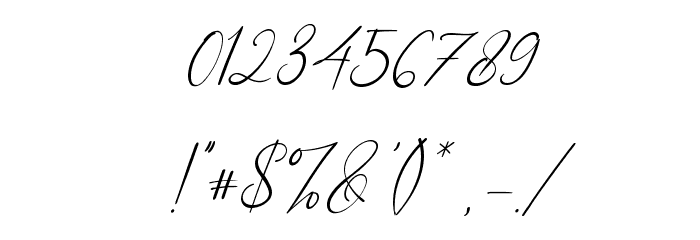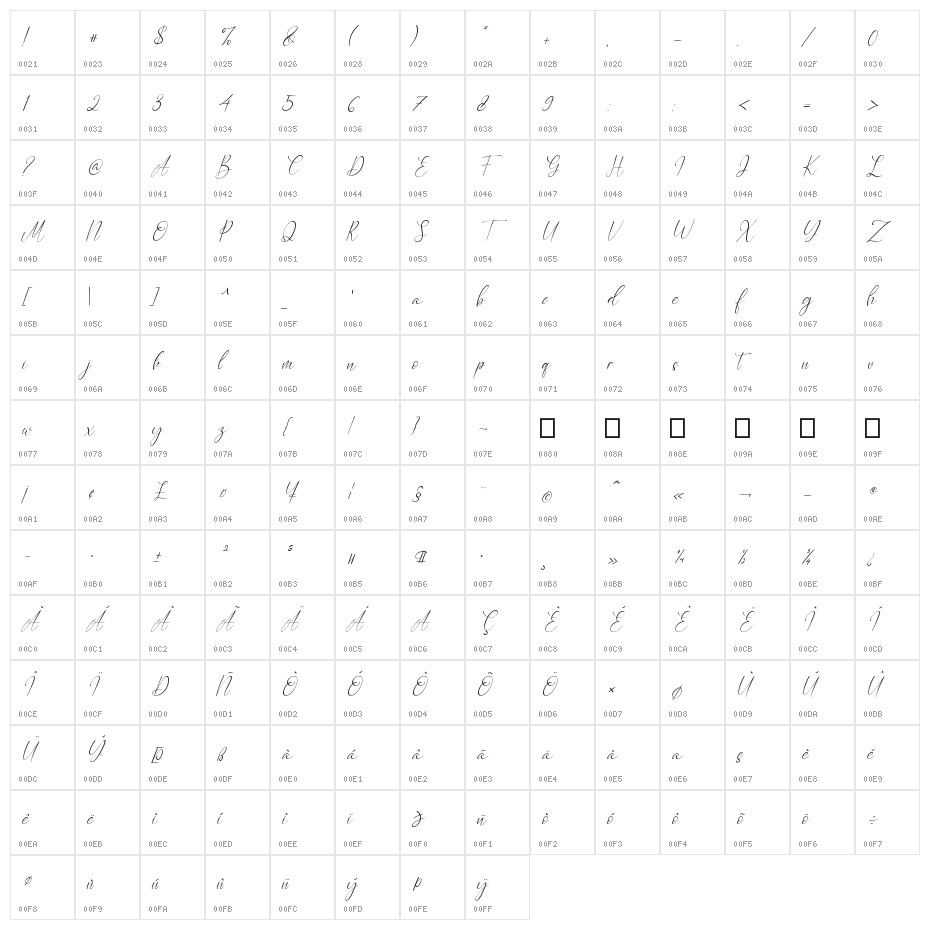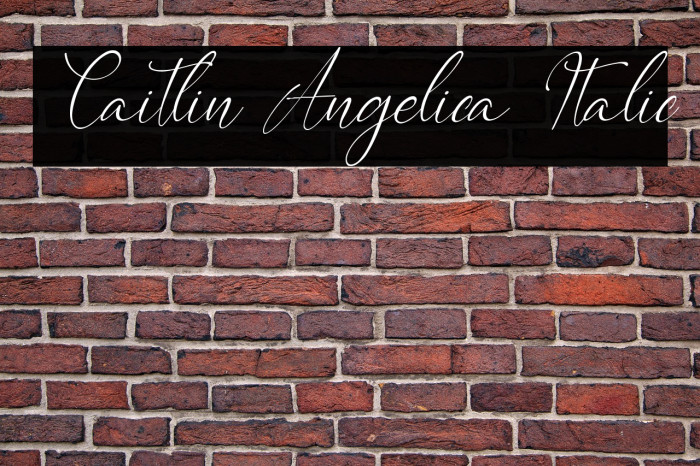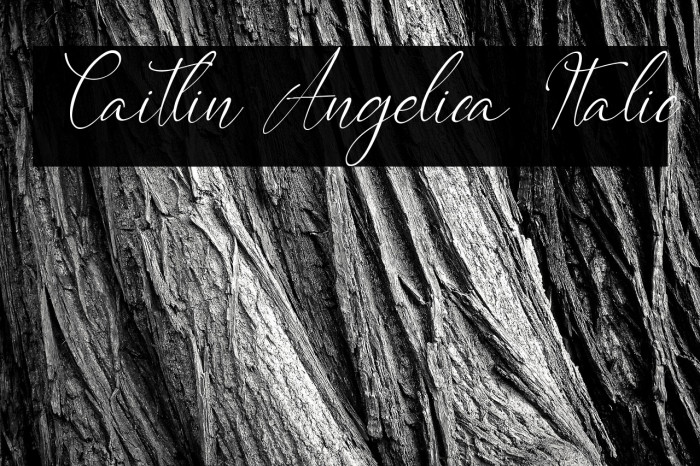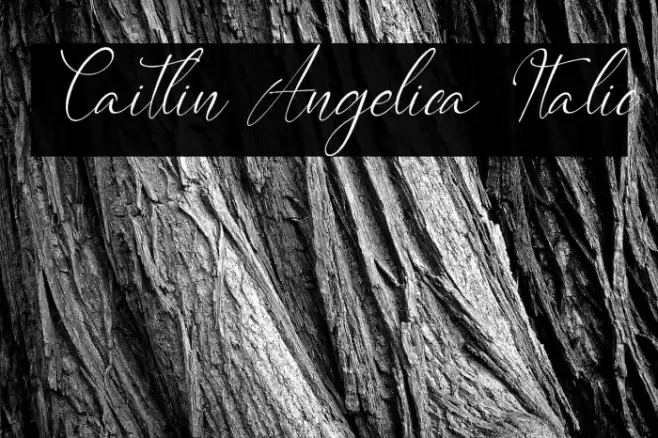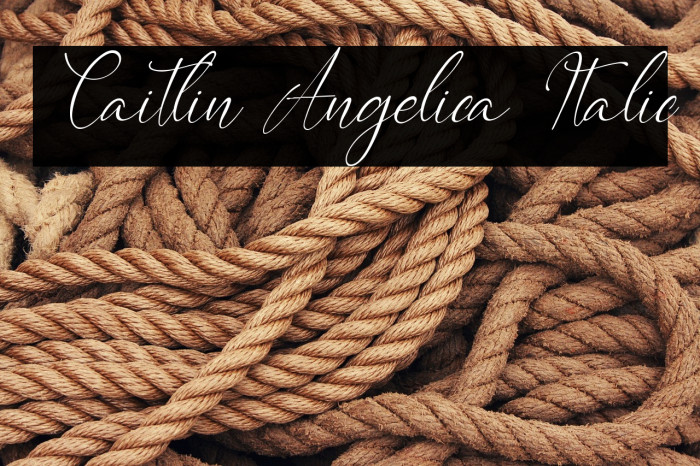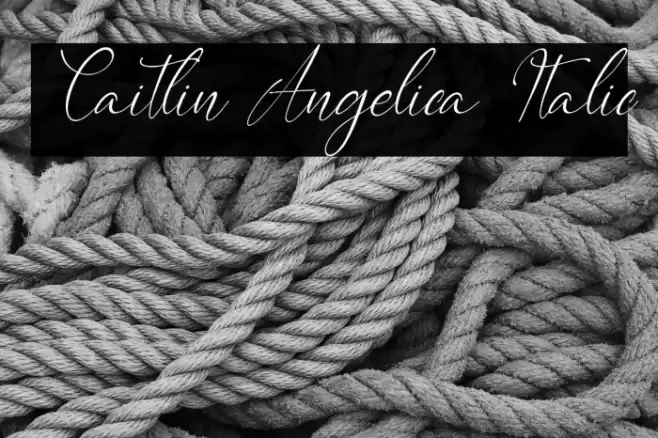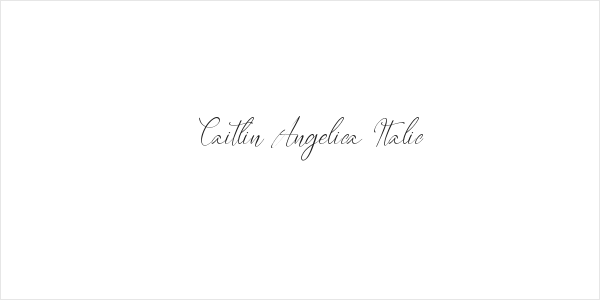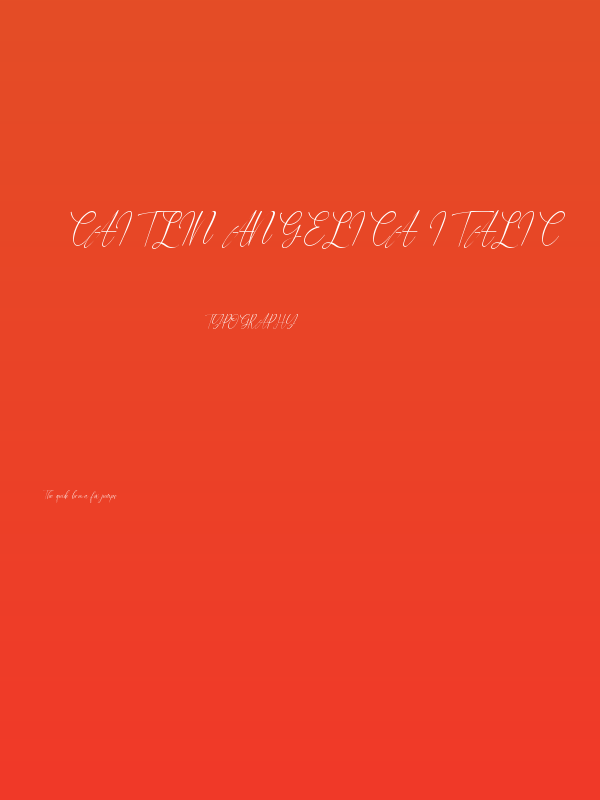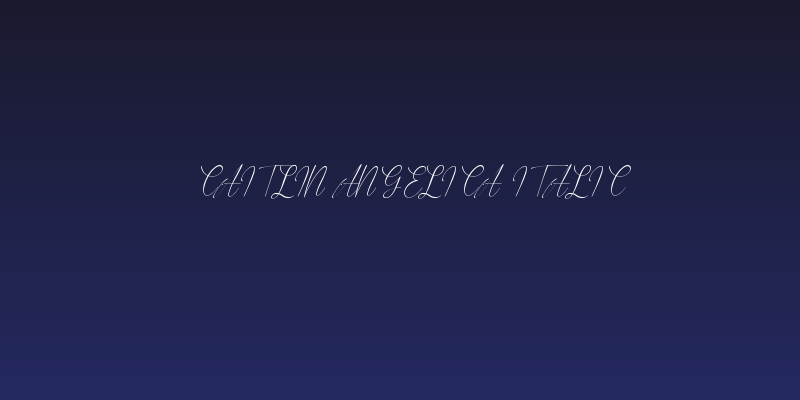
Caitlin Angelica Italic Font
Caitlin Angelica Italic Description
This elegant script font features a flowing, cursive style with delicate, elongated strokes that give it a sophisticated and graceful appearance. The letters are connected seamlessly, creating a sense of fluidity and movement. The uppercase letters are slightly more ornate, with flourishes that add a touch of drama, while the lowercase letters maintain a consistent, smooth flow. The numerals and special characters are designed to match the overall aesthetic, ensuring a cohesive look. This font is ideal for projects that require a touch of elegance and refinement.